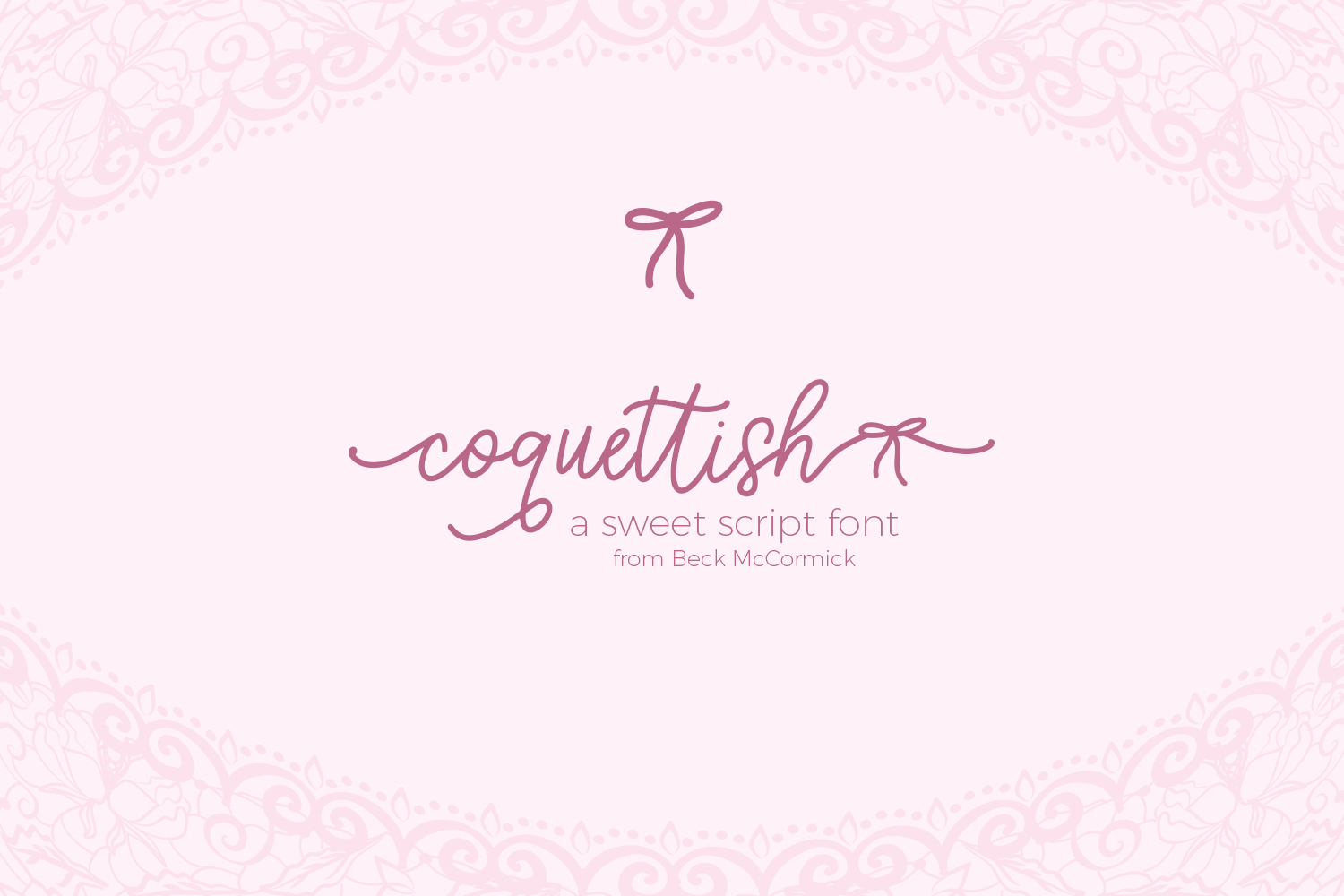
Coquettish Script
Introducing Coquettish Script, a flowy calligraphy font. Coquettish Script will add a handwritten touch to any project you use it for, including wedding invitations, quote graphics, elegant paper products, love notes, or more. Coquettish has a charming, sweet aesthetic so it’s a great fit for cute, feminine design work.
- 335 alternate characters, including a selection of left & right swashes